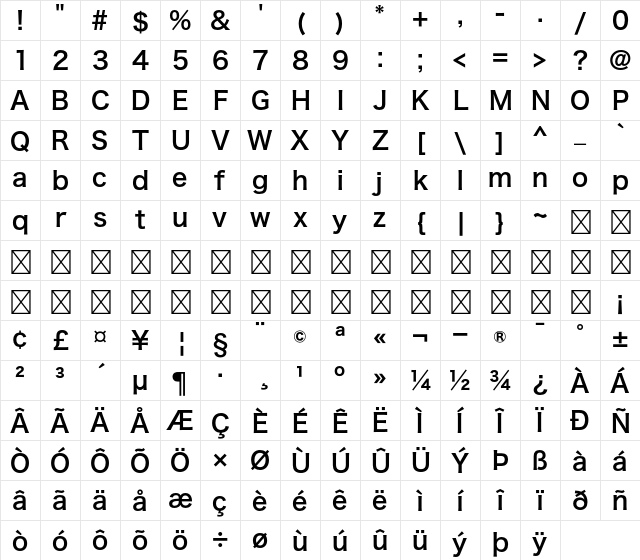
Hiragino Kaku Gothic ProN W6
Style: W6
Foundry: Dainippon Screen Mfg. Co., Ltd.
Designer: JIYUKOBO Ltd.
Design Context for Hiragino Kaku Gothic ProN
Hiragino Kaku Gothic ProN takes a clean, functional approach - its unadorned letterforms prioritise legibility and work reliably across screen and print environments.
Font Pairing: Works well alongside a characterful serif or display font that can carry the expressive load while Hiragino Kaku Gothic ProN handles the functional copy.
Pro Tip: Use Hiragino Kaku Gothic ProN for UI labels, navigation, and short-form body copy where clean legibility is the priority.
Who designed the Hiragino Kaku Gothic ProN W6 font?
This font was published by Dainippon Screen Mfg. Co., Ltd.. Check the technical specs section for copyright and designer details.